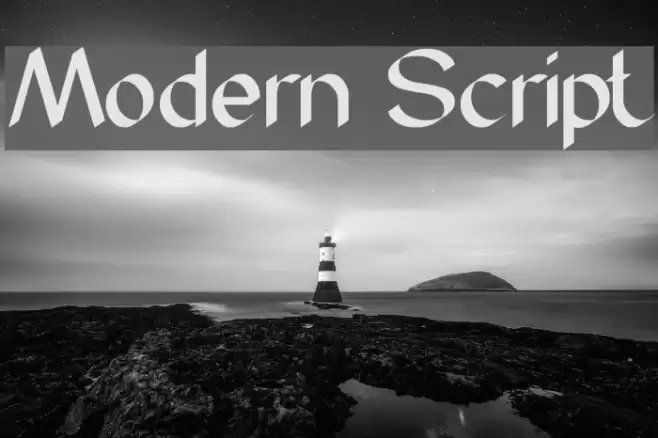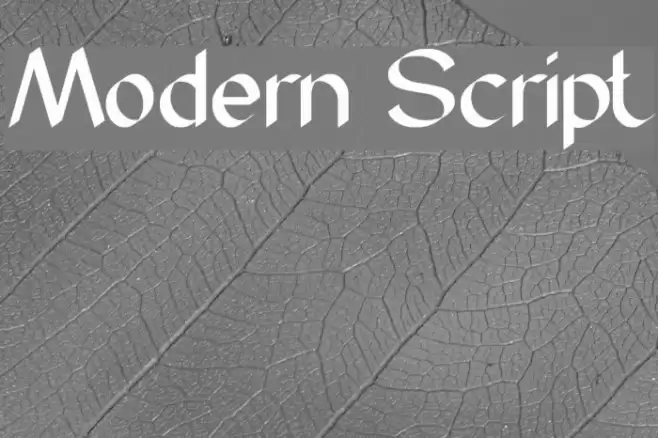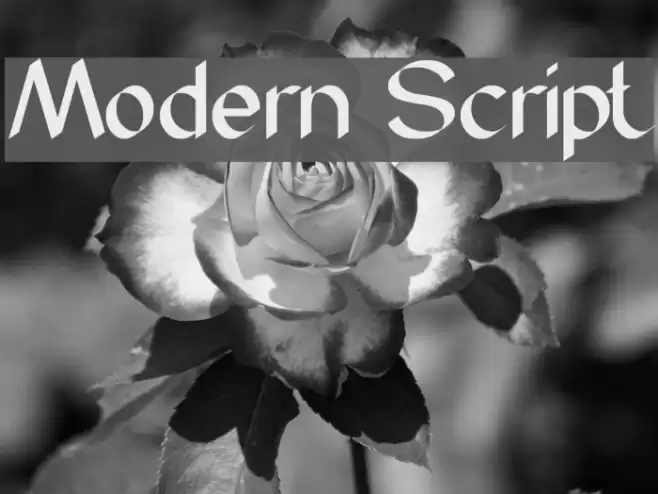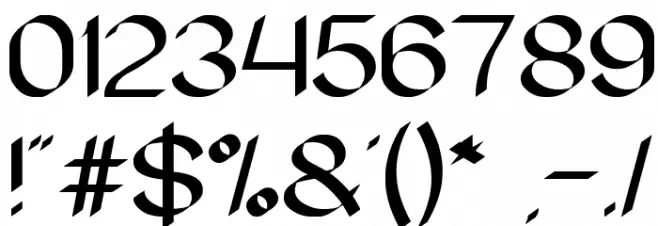
Modern Script Font
Modern Script Description
This font features a modern and sleek design with a unique blend of sharp angles and smooth curves. The uppercase letters are bold and assertive, while the lowercase letters maintain a consistent flow with a slight slant, adding a dynamic feel. The numerals are clear and distinct, ensuring readability. Special characters are creatively designed, maintaining the overall aesthetic. The font's geometric elements and clean lines make it suitable for contemporary design projects.
A modern, sleek font with sharp angles and smooth curves, ideal for contemporary designs from Uncategorized fonts.
- Proposed Projects: Perfect for branding, advertising, and editorial design projects that require a modern and dynamic touch.
- Use Case: Headlines, Logos, Branding